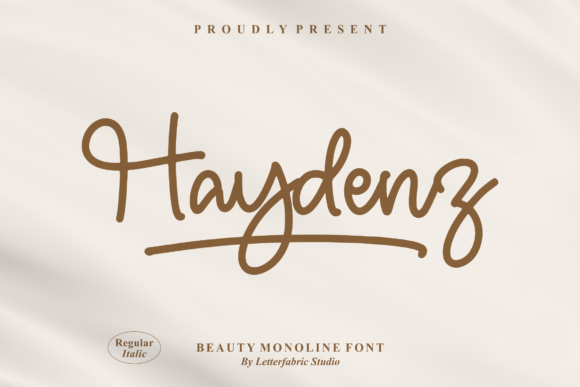
Discover the Beauty of Handwritten Style with Haydenz Font
Have you ever been captivated by the charm of a handwritten note, the elegance of a beautifully scripted logo, or the whimsy of a delicate font in a photography caption? For designers, finding the perfect script font can be a game-changer, elevating projects from ordinary to extraordinary. That’s where the Haydenz Font comes in – a fashionable and delicate script font designed to add a touch of sophistication to any project.
With the Haydenz Font, designers can breathe new life into their branding projects, labels, photography, and more. Its PUA encoded feature allows for easy access to all glyphs and swashes, making it a valuable addition to any design toolkit. Whether you’re working on a special event invitation, a product label, or a social media watermark, the Haydenz Font is sure to bring a beautiful script taste to your work.
- Unique Characteristics: The Haydenz Font features a unique blend of modern and vintage elements, with clean lines and elegant curves, making it perfect for a wide range of design projects
Designer Review: Haydenz Font
At first glance, the Haydenz font seems to have a promising aesthetic, but does it live up to its potential? Let’s dive in and find out.
- Unique and quirky design: The Haydenz font has a distinct personality that can add a touch of whimsy to any project.
- Good legibility: Despite its unusual design, the font remains relatively easy to read, making it suitable for body text.
- Highly customizable: The font offers a wide range of styles and weights, giving designers the flexibility to adjust it to their needs.
- Limited suitability for headlines: Due to its complex design, the Haydenz font may not be the best choice for headlines or titles, where clarity and readability are crucial.
- May not be suitable for small font sizes: At smaller font sizes, the font’s intricate details can become lost, making it difficult to read.
While the Haydenz font has its strengths, its limitations make it less versatile than some other fonts. However, for designers looking to add a touch of personality to their projects, Haydenz can be a great choice.
Tips for Getting the Most Out of Haydenz Font
Haydenz Font is a versatile font that can be used for a variety of purposes, including:
- Designing logos and branding materials
- Creating invitations and event materials
- Designing digital products and marketing materials
To get the most out of Haydenz Font, experiment with different font sizes, colors, and styles to find the perfect combination for your design.
Haydenz Font is commonly used for:
- Modern and minimalist designs
- High-tech and digital designs
- Business and corporate designs